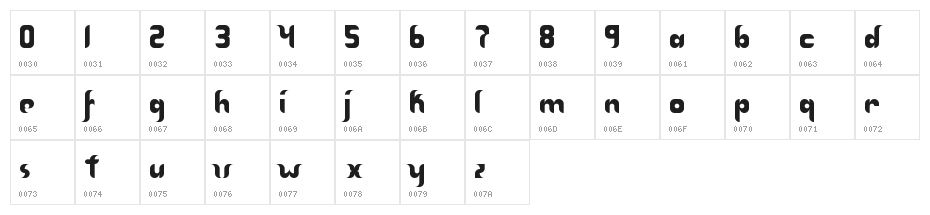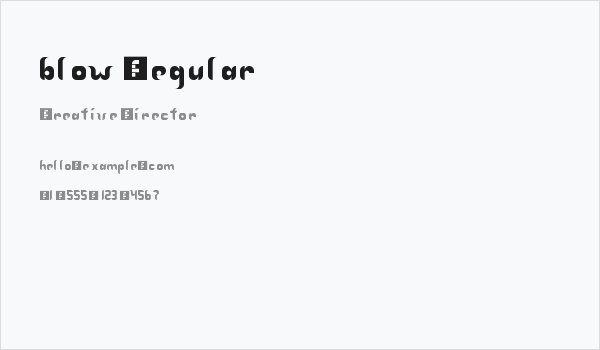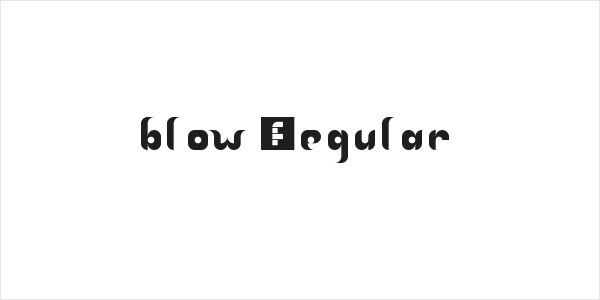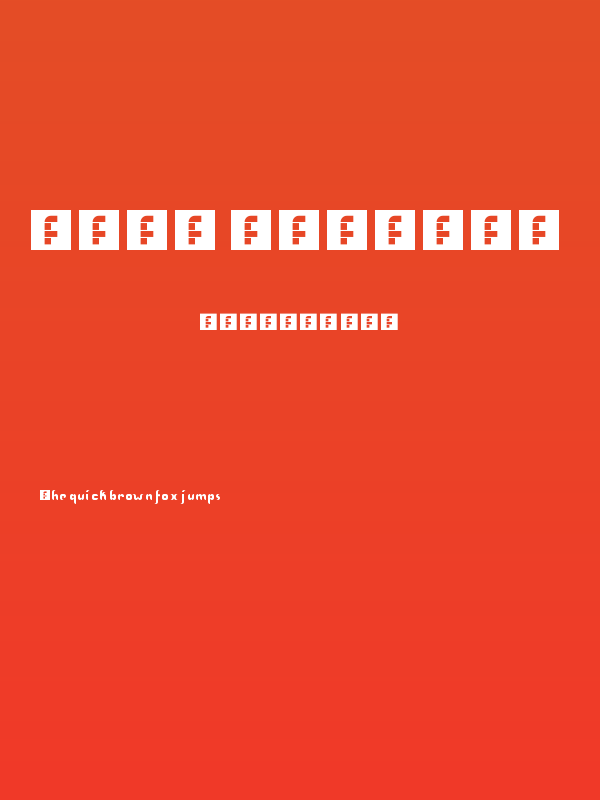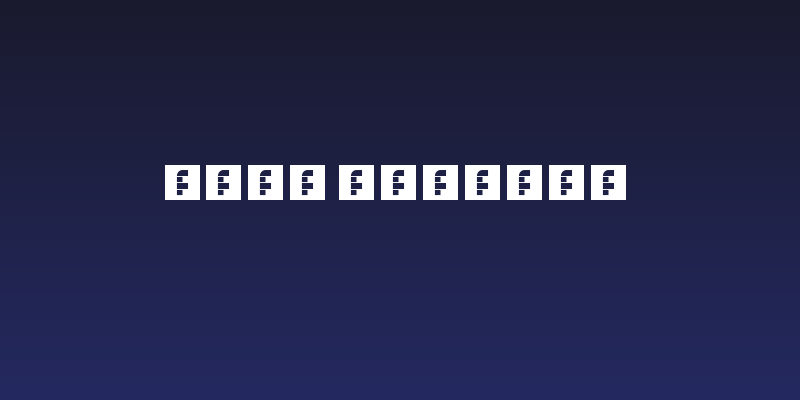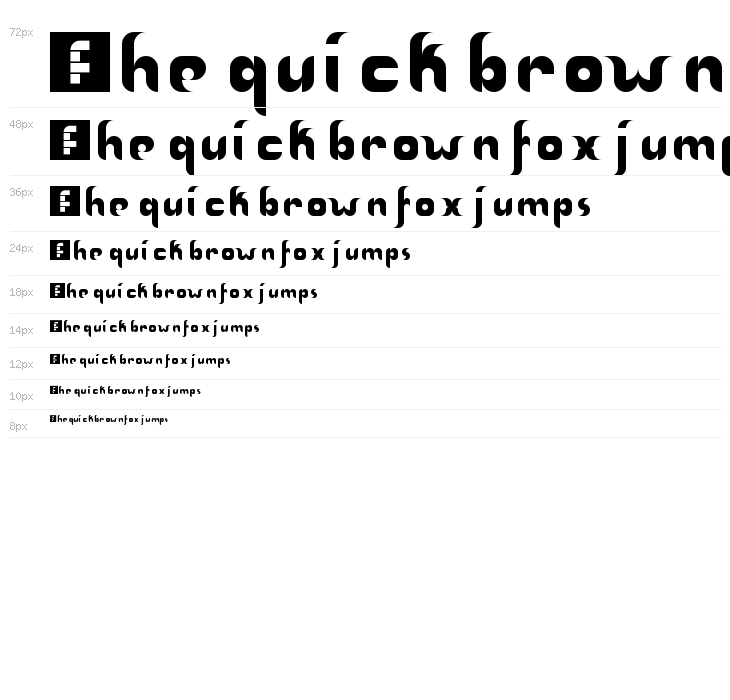
blow Regular Font
blow Regular Description
This font features a bold and modern design with a unique, artistic flair. The characters are crafted with a strong emphasis on geometric shapes, giving them a futuristic and dynamic appearance. The strokes are thick and consistent, creating a sense of stability and strength. The lowercase letters have a playful, rounded quality, while the uppercase letters maintain a more structured and formal look. The numbers are bold and easily legible, making them suitable for various applications. The special characters are designed to complement the overall style, adding a cohesive touch to the font's aesthetic.
| Proposed Projects | Ideal for branding, advertising, posters, and digital media projects that require a strong visual impact. |